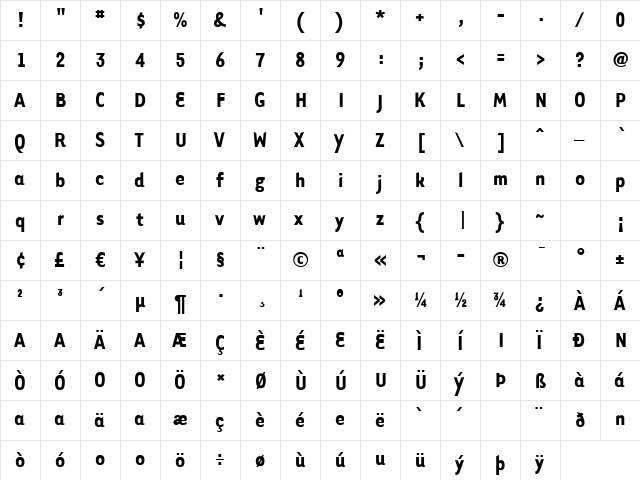
Tarzana Narrow Bold Regular
Design Context for Tarzana Narrow Bold Typeface
Tarzana Narrow Bold is a composed and adaptable typeface that performs quietly and consistently across a wide range of design contexts. Its bold stroke weight gives it real presence on the page. The condensed width makes it efficient for tight spaces without sacrificing legibility.